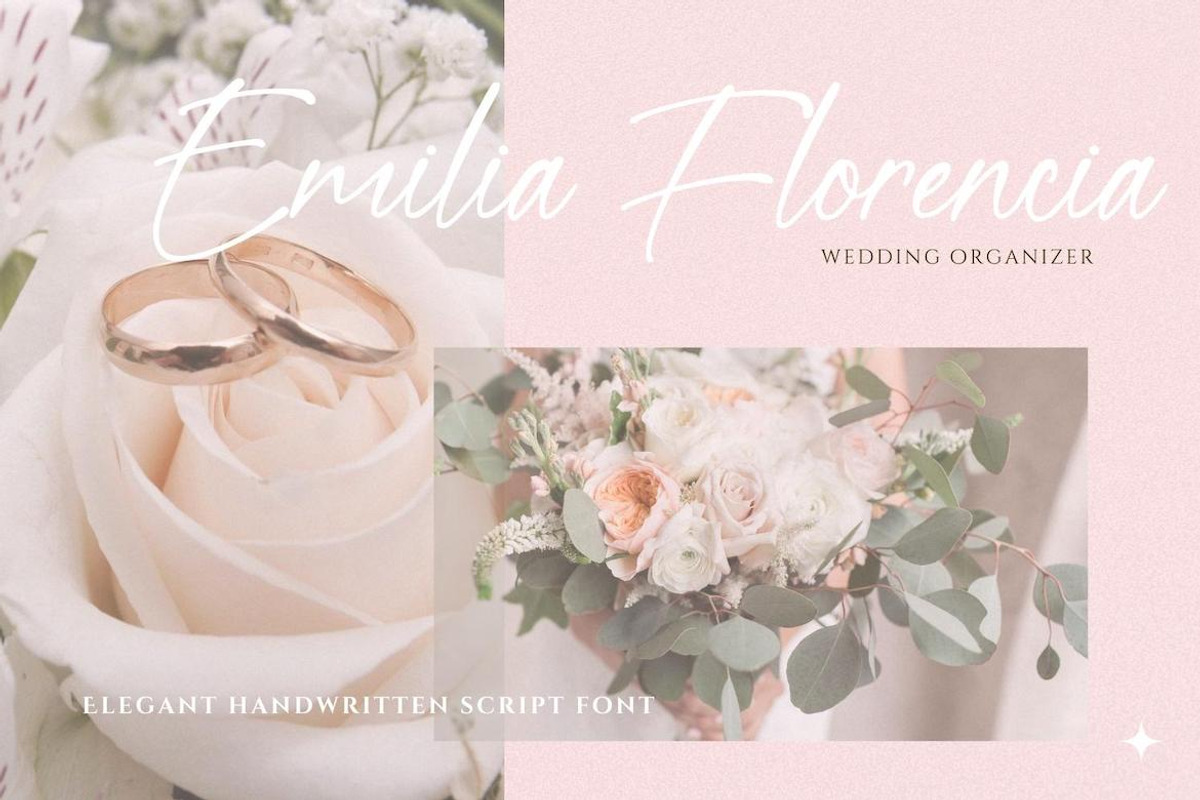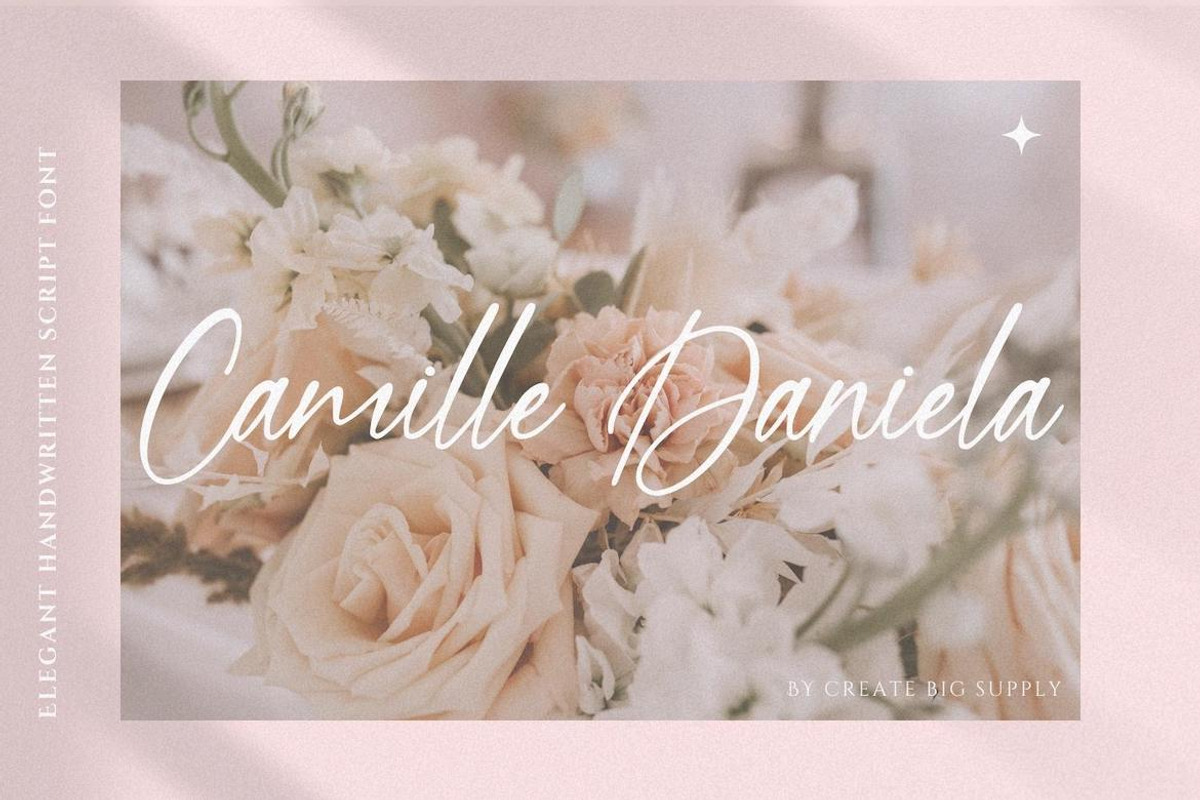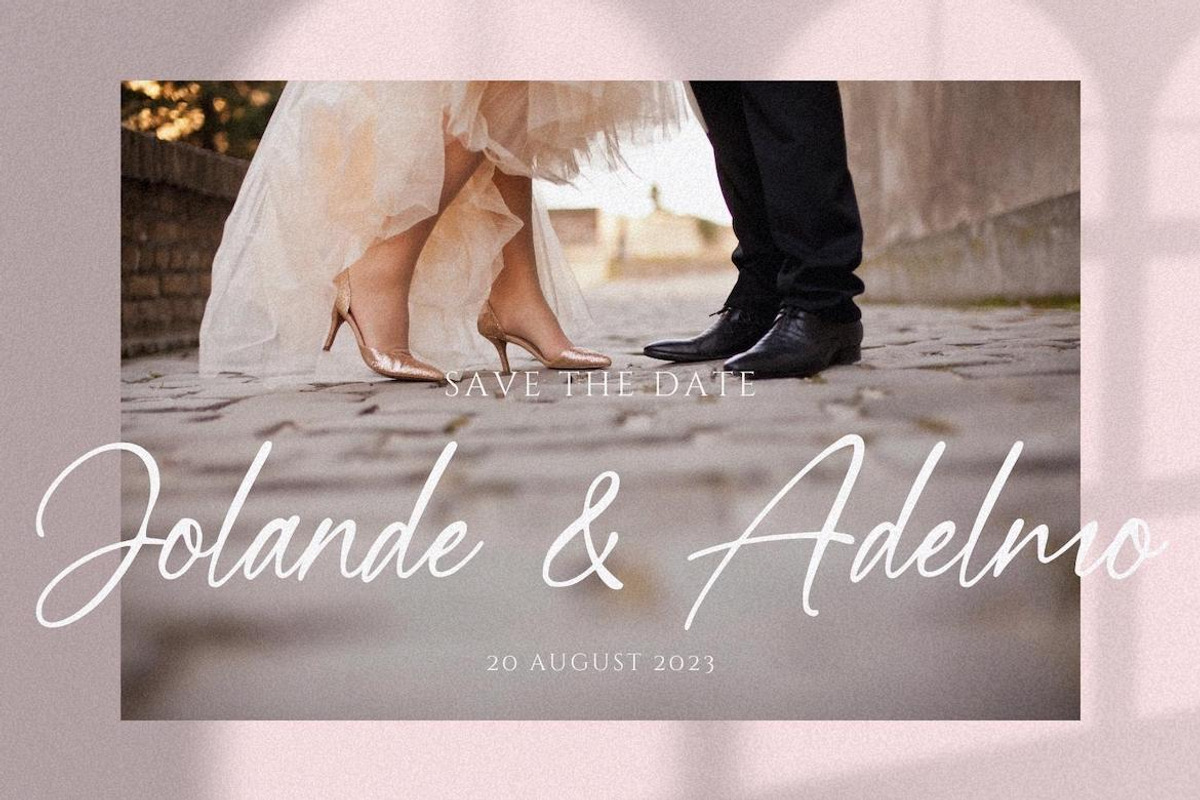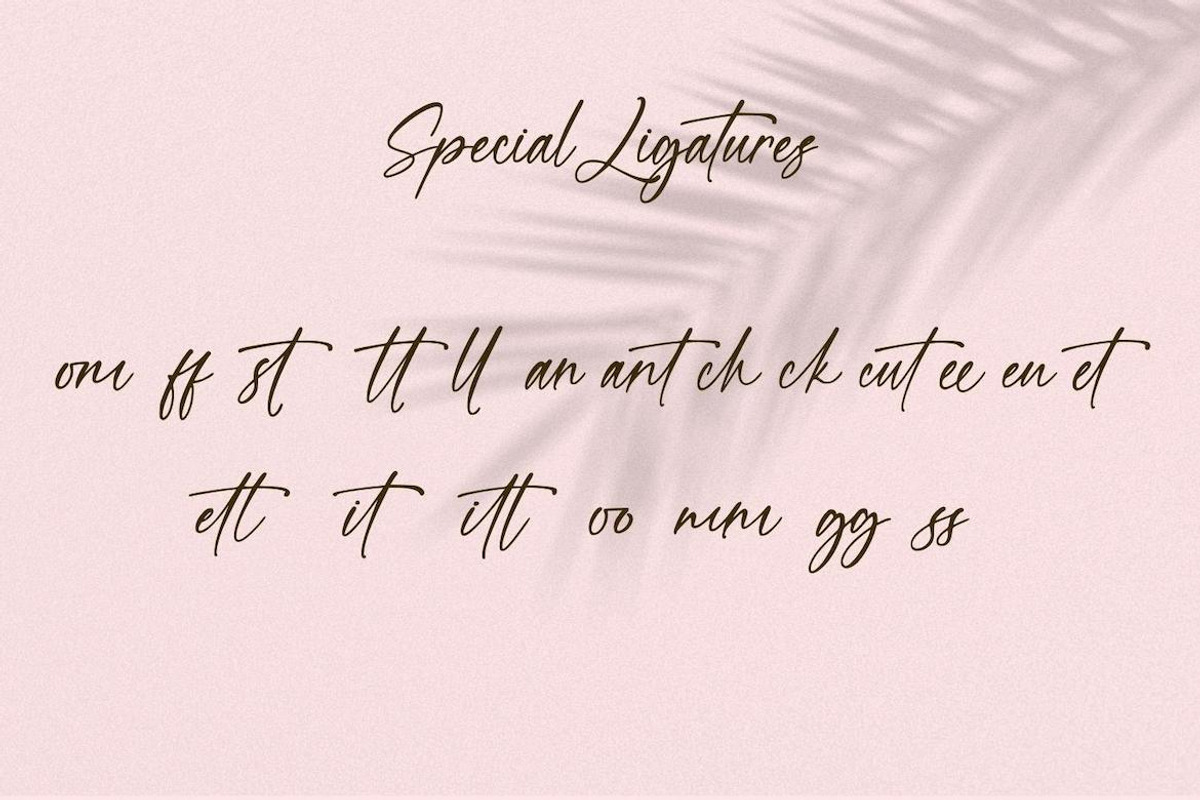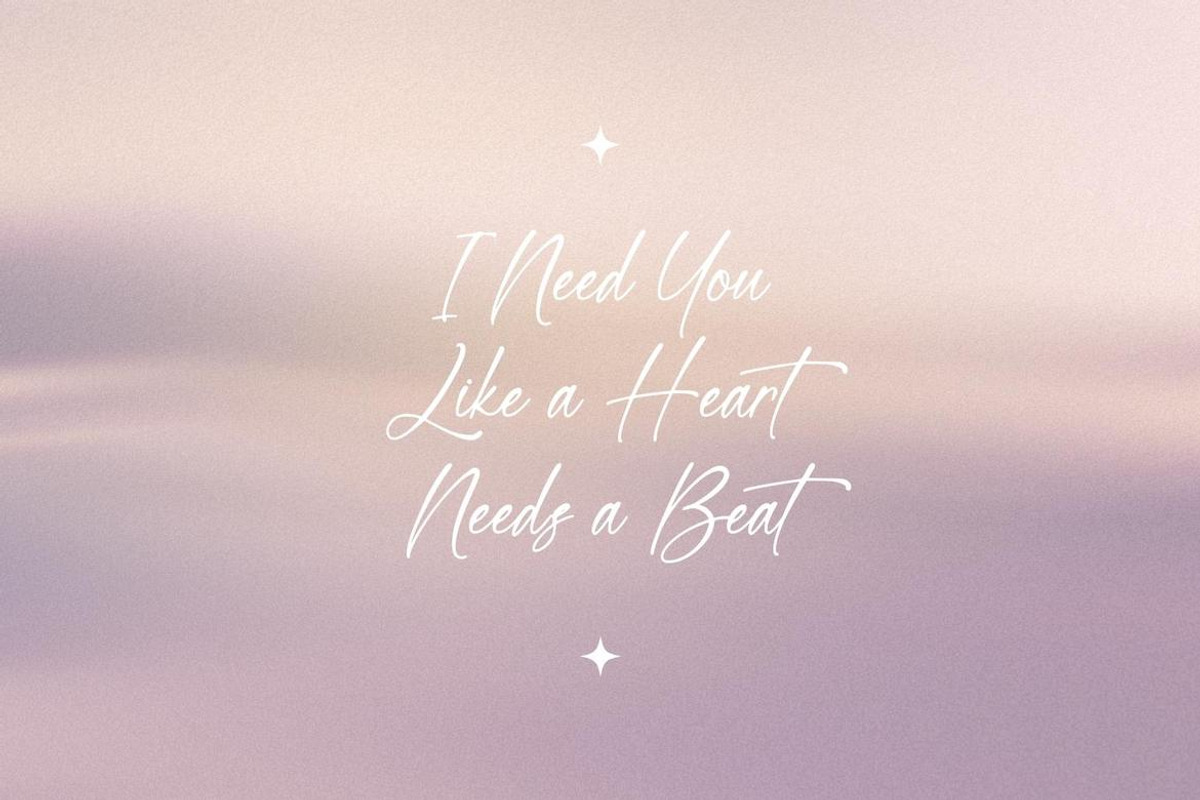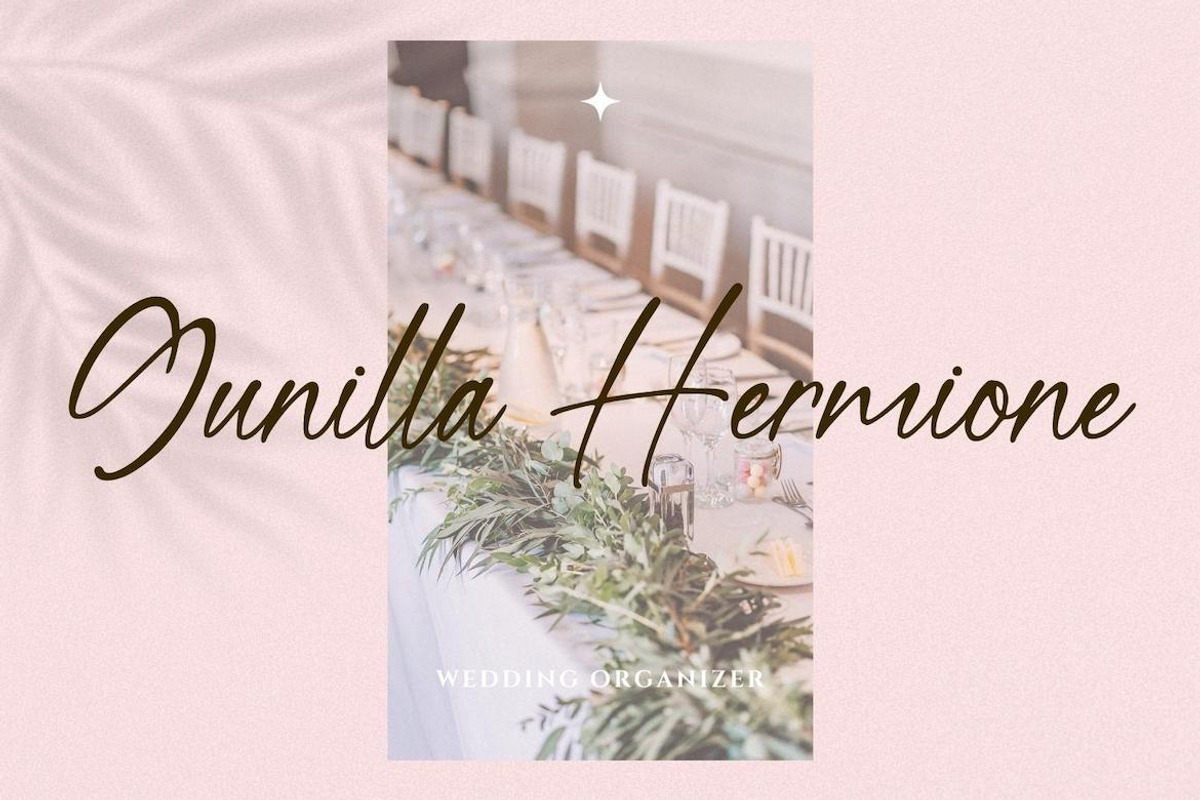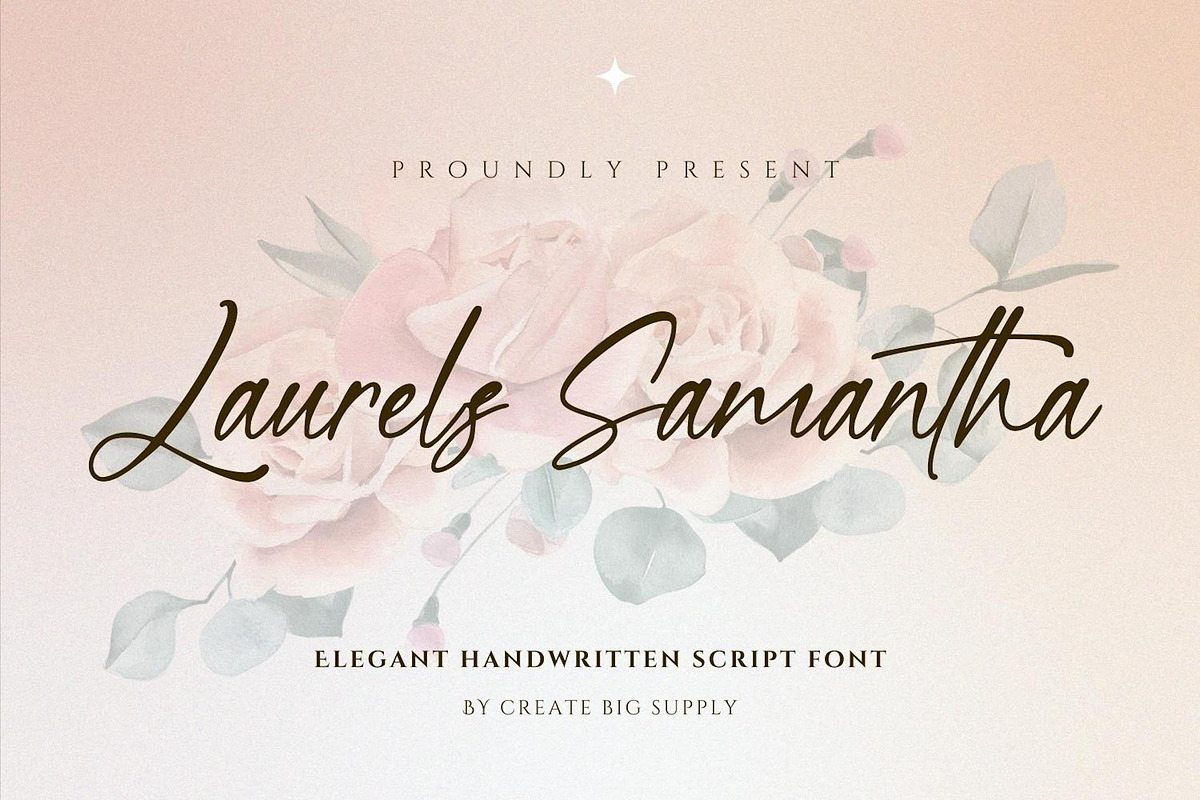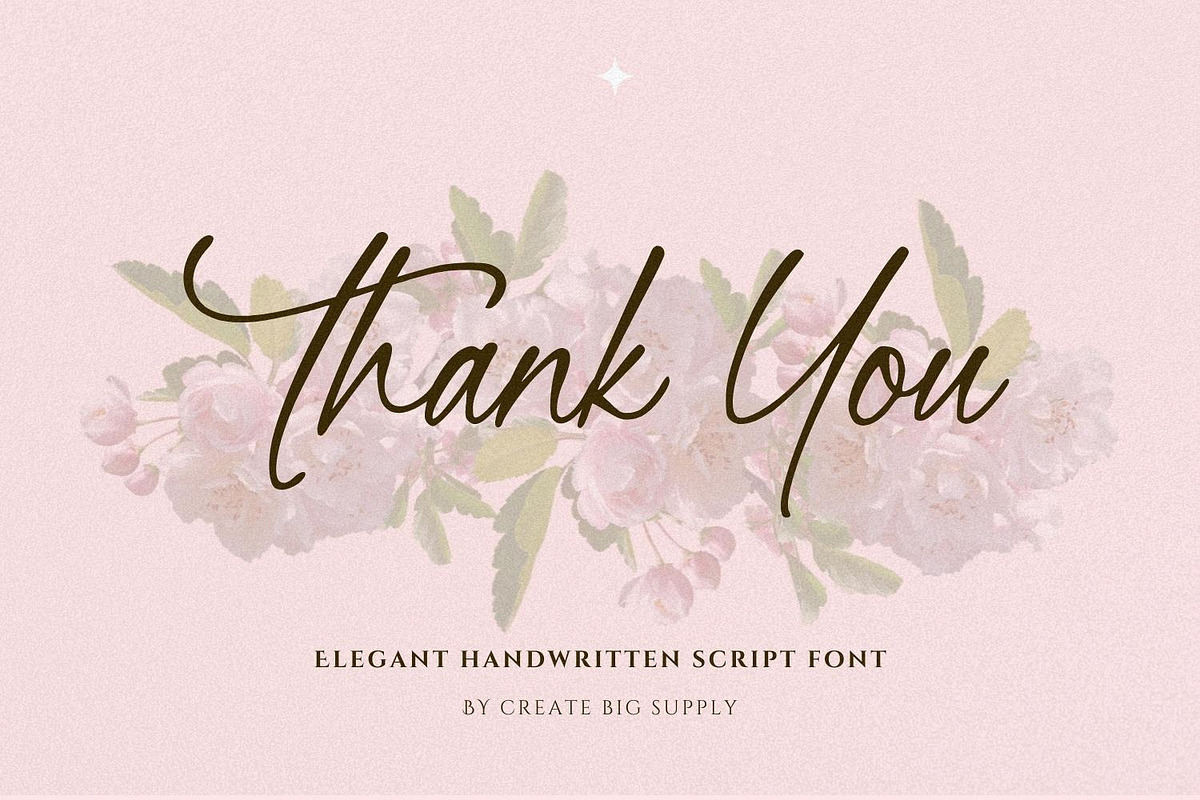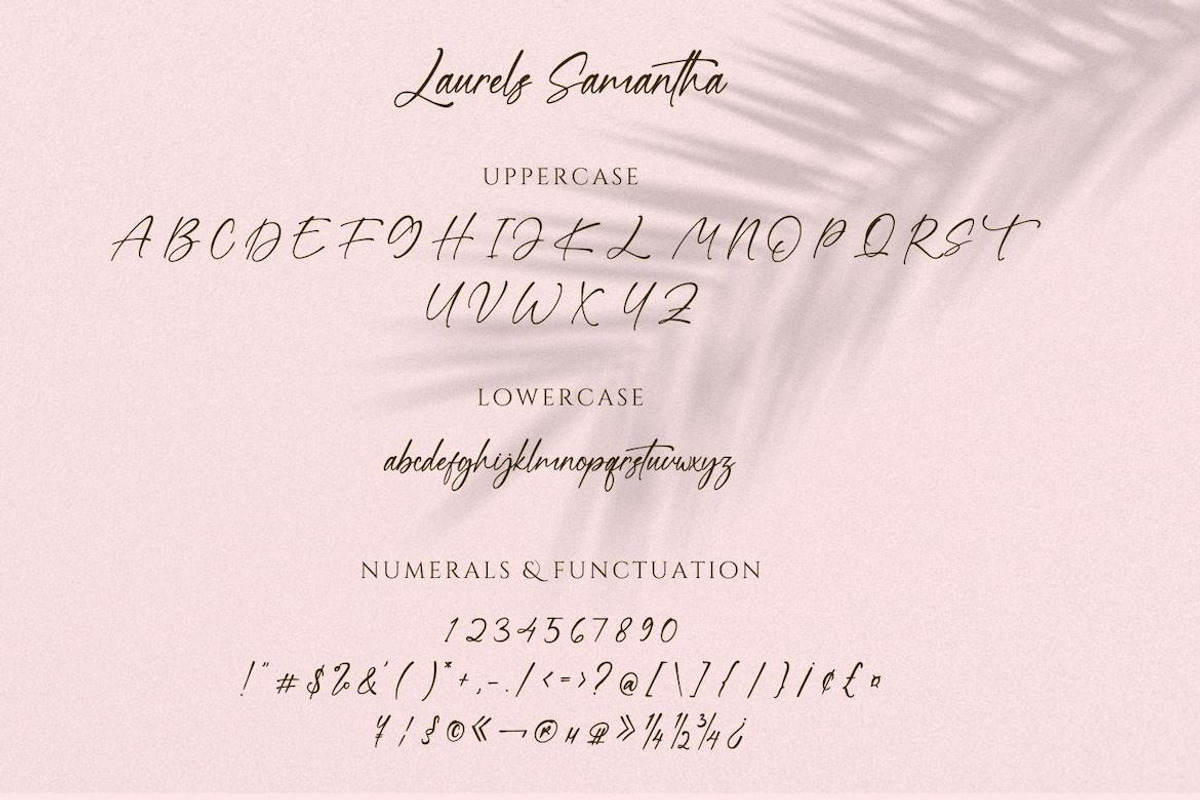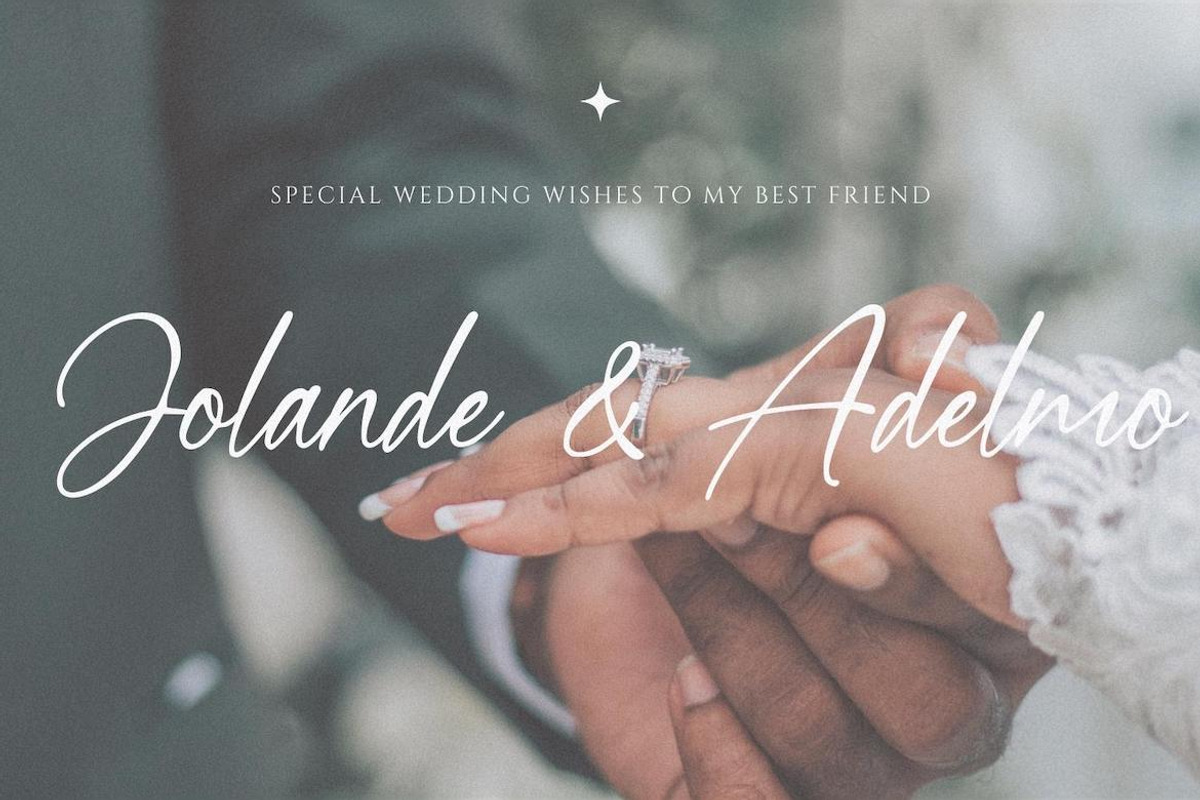
Laurels Samantha
Discover the captivating beauty of Laurel's Samantha, an exquisite script handwriting signature font. With its unique and stunning style, this font is perfect for adding a touch of elegance to a wide range of projects. Whether you're creating personalized invitations, branding materials, or captivating social media posts, Laurel's Samantha will elevate your designs. It offers a complete set of uppercase and lowercase letters, numbers, and punctuations, ensuring versatility and creative freedom. The font supports multiple languages, making it accessible to a global audience. Featuring ligatures and PUA encoding, Laurel's Samantha provides seamless connections between letters and easy access to a wealth of special glyphs. Unleash your creativity and let Laurel's Samantha leave a lasting impression.